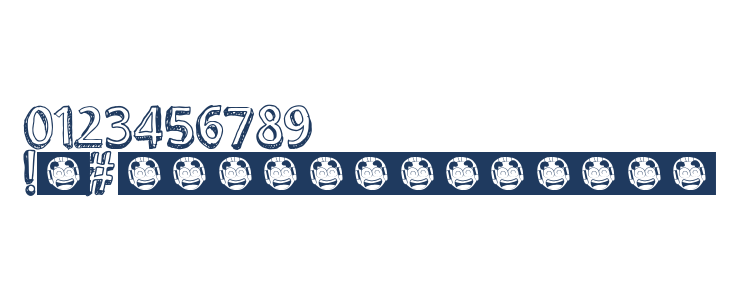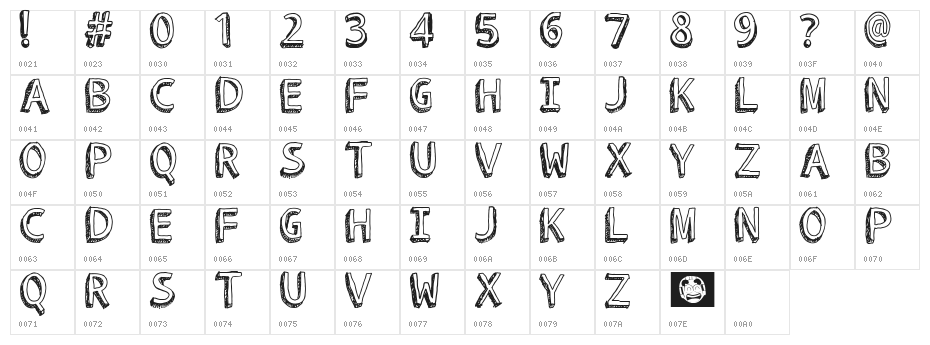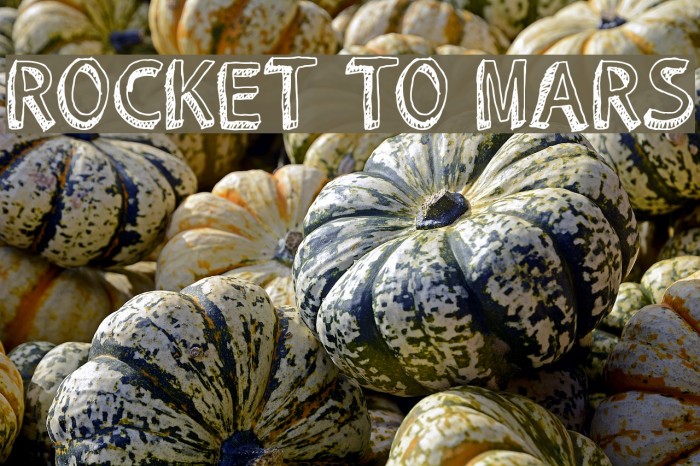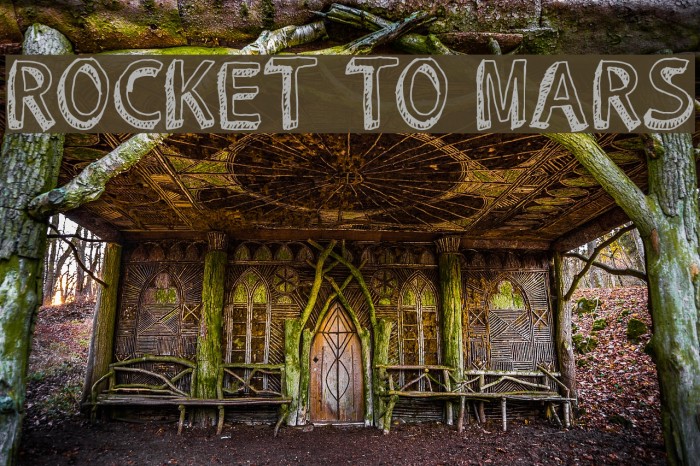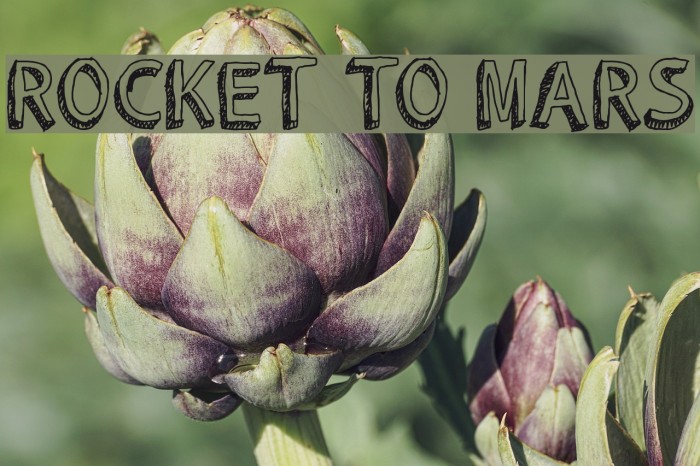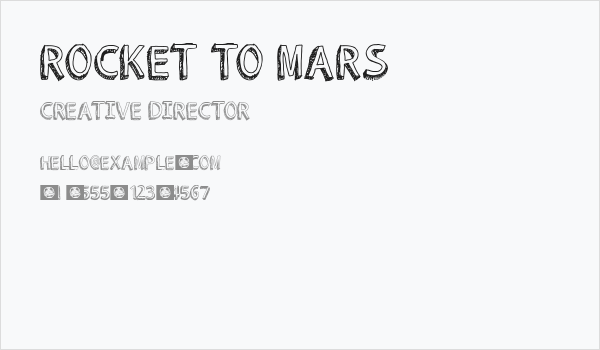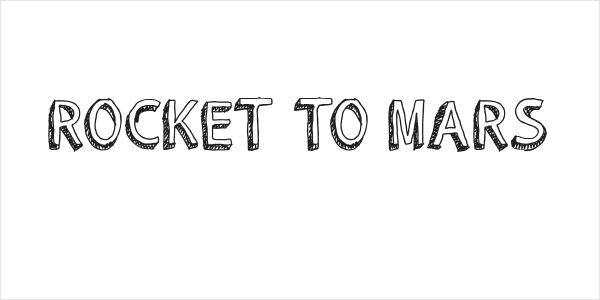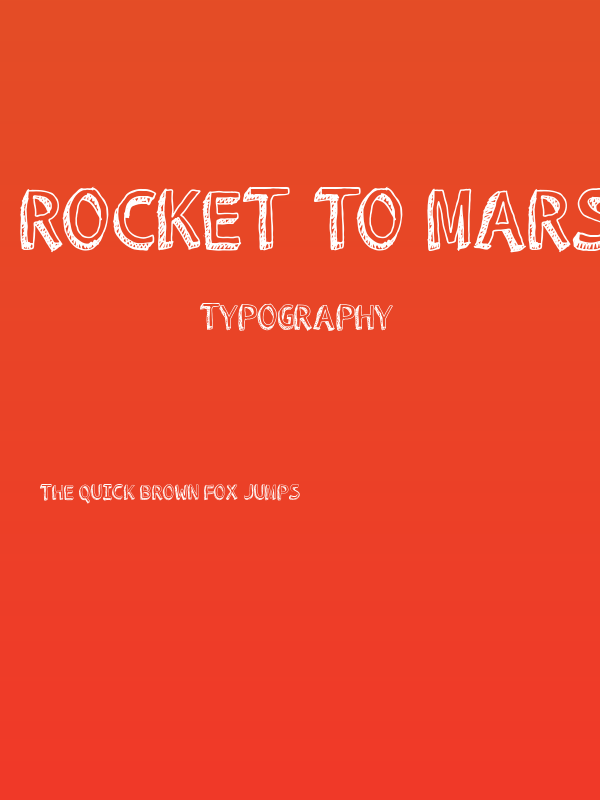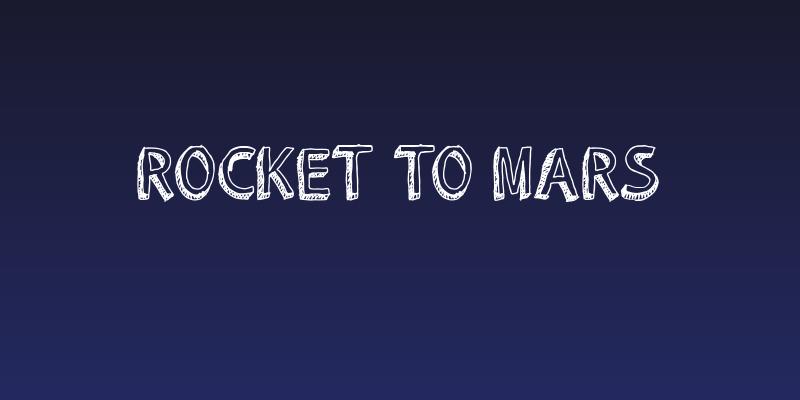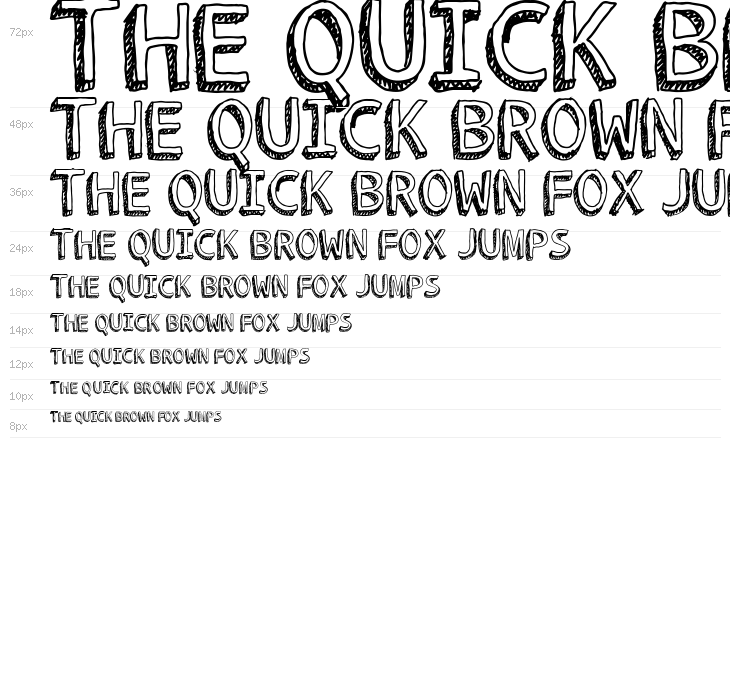
ROCKET TO MARS Font
ROCKET TO MARS Description
This font features a playful and hand-drawn style, characterized by its bold, sketch-like appearance. Each character is outlined with a thick, uneven stroke, giving it a dynamic and energetic feel. The letters have a slightly irregular shape, adding to the whimsical and informal aesthetic. The numbers and special characters follow the same design, maintaining consistency throughout the set. This font is ideal for projects that require a fun and creative touch, such as children's book covers, comic strips, or playful branding materials.
| Proposed Projects | Ideal for children's books, comic strips, playful branding, and creative posters. |